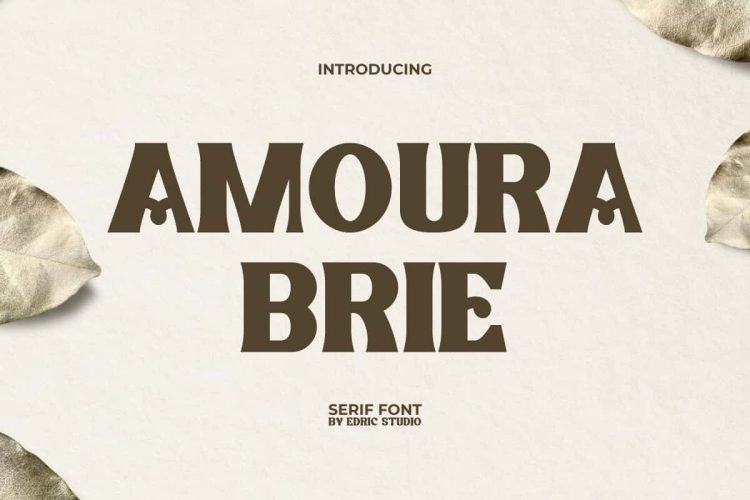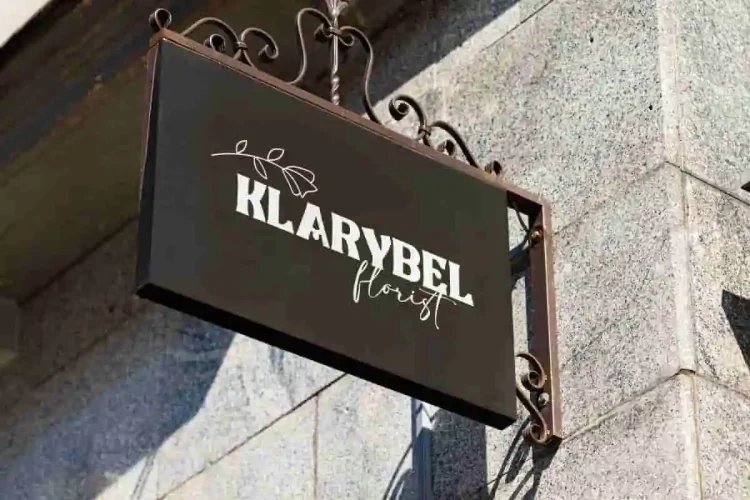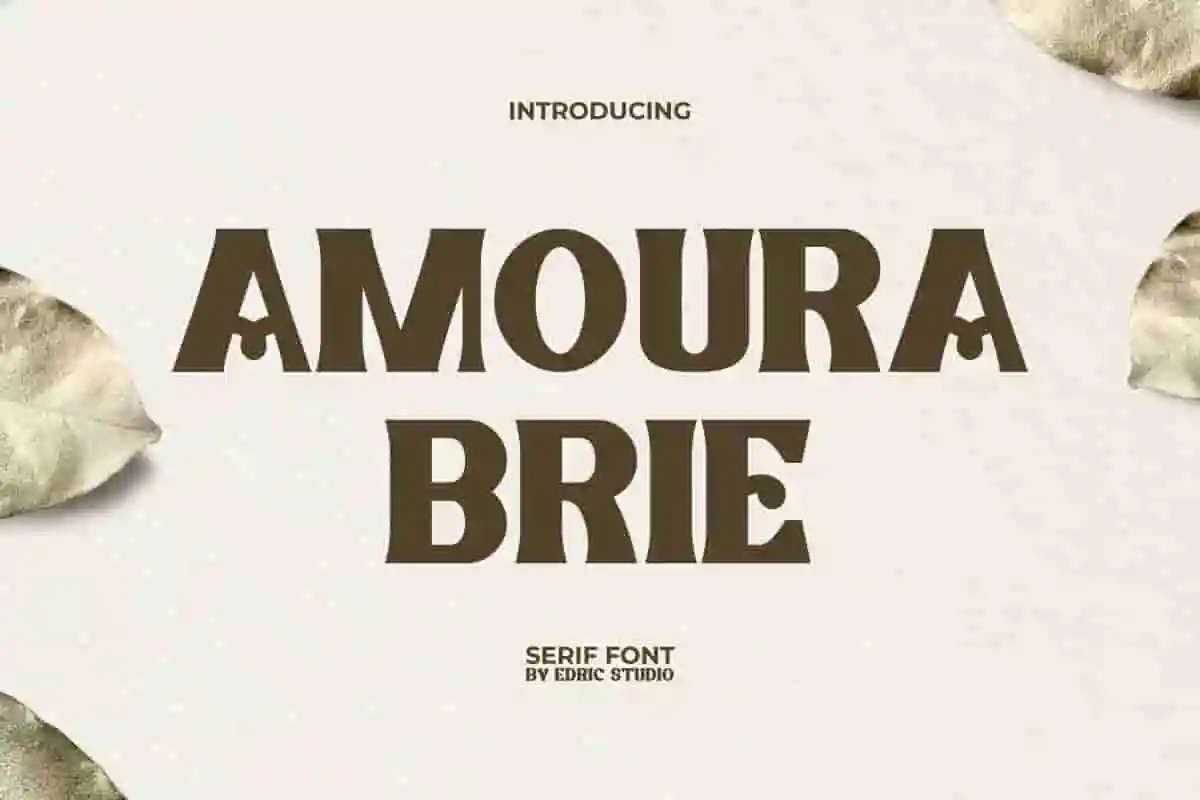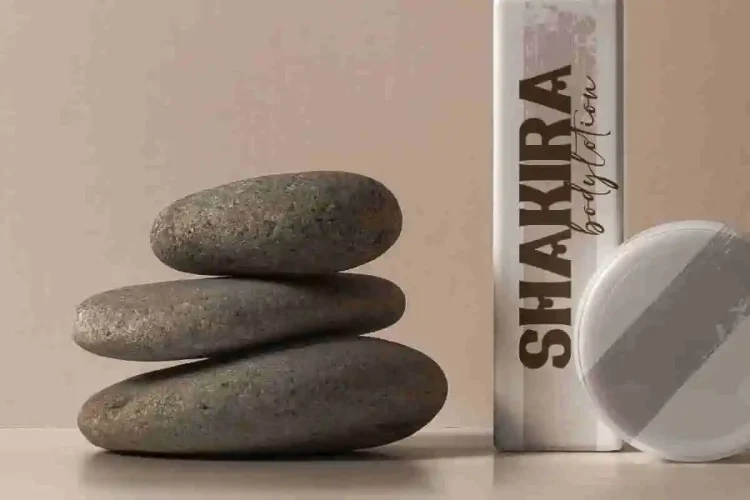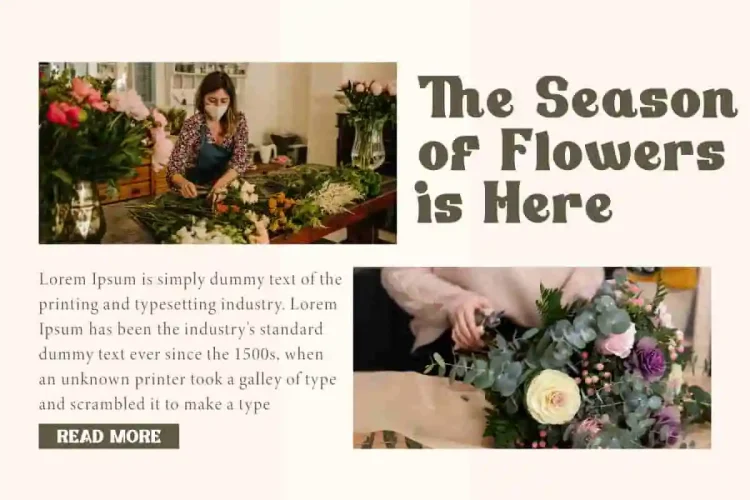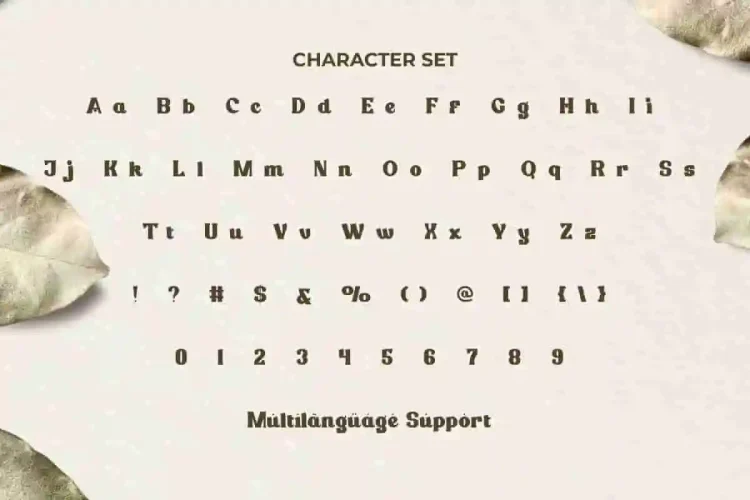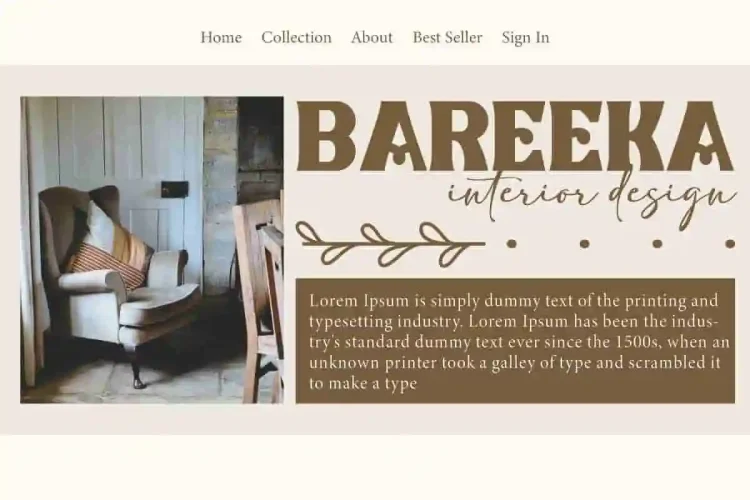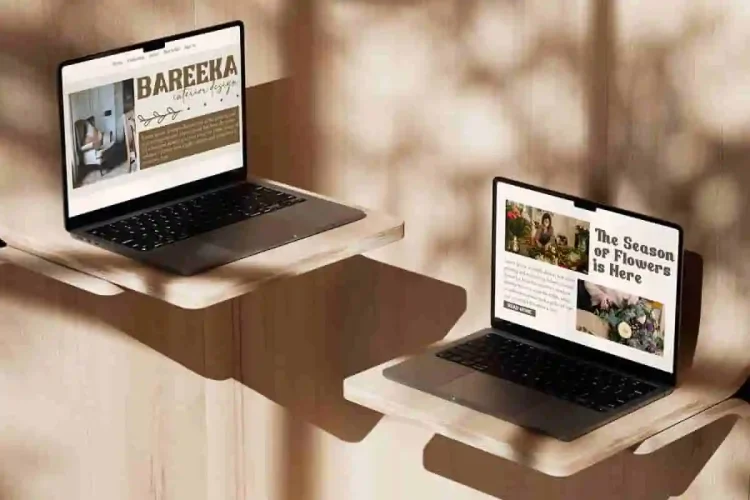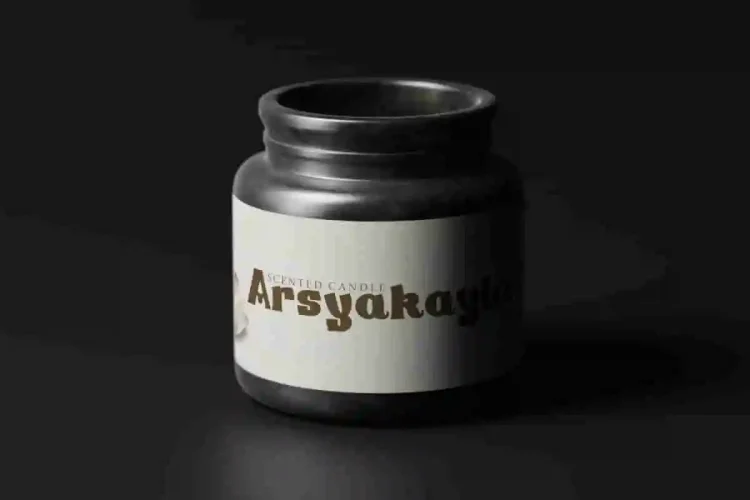
Amoura Brie Font
Amoura Brie Font is a bold retro serif display font that feels clean with a touch of elegance that makes it look unique and stylish. It carries a mid-century feel that is made more fun in a great modern retro aesthetic. Perfect for apps, banners, blogs, brand logo, brochure, covers, mockup, headers, label product, packaging design, poster, signage, template, title, website, and much more.
Amoura Brie Font includes a complete set of Uppercase and Lowercase letters, Numbers, Punctuation, and Symbols. This font has a beautiful letterform that looks different from the usual with a light wave style. Ideal for anyone craving a cool touch of vintage style. Lets you experiment fearlessly! Perfect for beauty product, coffee shop, digital marketing, florist, graphic design, home furniture, interior design, restaurant, spa supplier, and much more.